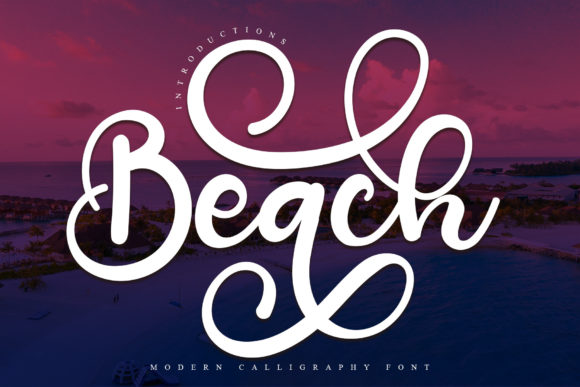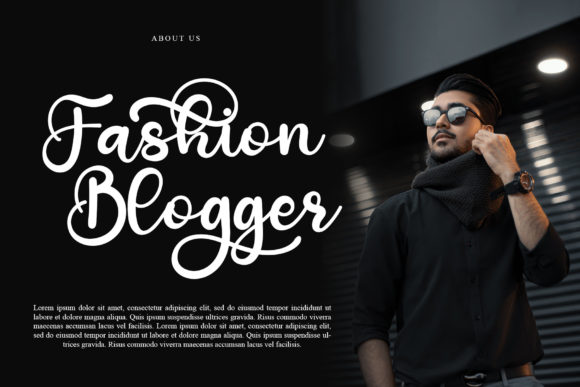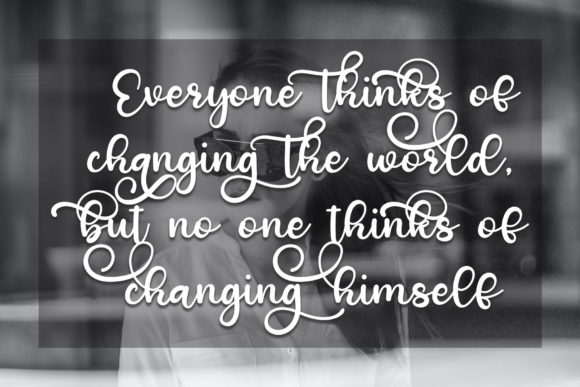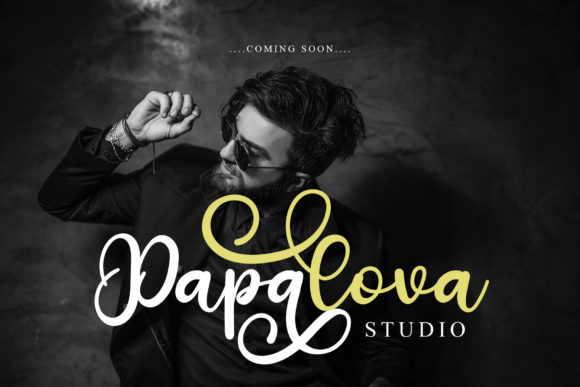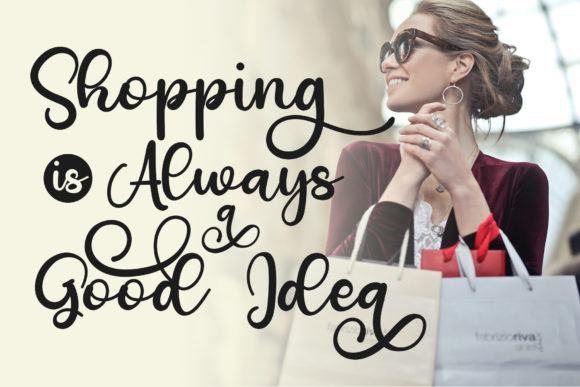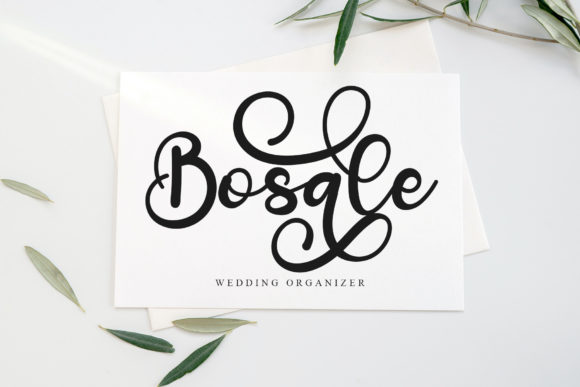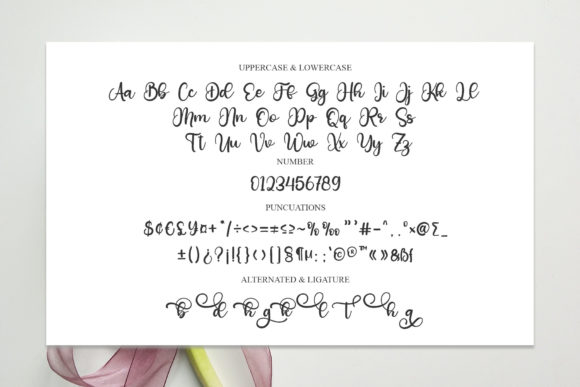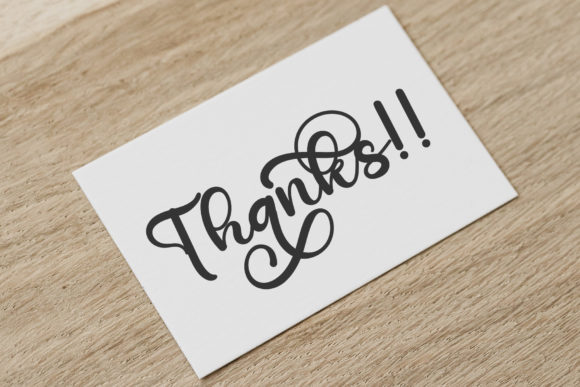
Beach Font
About Beach Font
“Beach” is not just a font—it’s a luxurious handwritten typeface that exudes elegance and sophistication. Characterized by its refined and elegant touch, “Beach” is perfect for a variety of projects where a touch of luxury is desired.
Fall in love with the incredibly distinct and timeless style of “Beach,” as it adds a touch of class and sophistication to your designs. Whether used for branding materials, wedding invitations, packaging, or any other creative project, this font elevates your work to new heights of luxury and refinement.
The graceful strokes and delicate curves of “Beach” give it a unique and captivating allure that is sure to impress. Its versatility allows it to be used in a wide range of applications, making it a valuable asset for designers seeking to create spectacular designs.
Moreover, “Beach” is designed to be practical and easy to use. Its well-crafted letterforms ensure readability across various mediums and platforms, ensuring your message is effectively communicated to your audience.
In summary, “Beach” is more than just a font—it’s a luxurious and elegant tool that empowers designers to create stunning and memorable designs with ease. Embrace its distinct style and add a touch of luxury to your favorite projects with “Beach” as your go-to typeface.